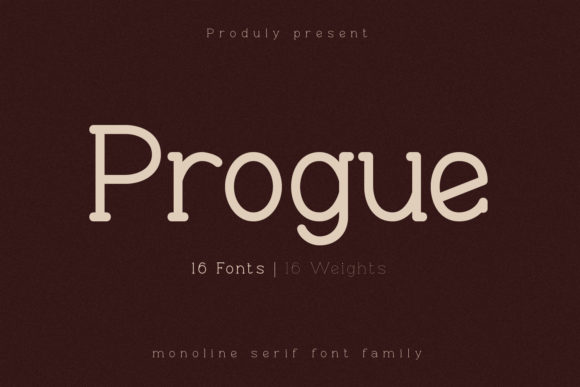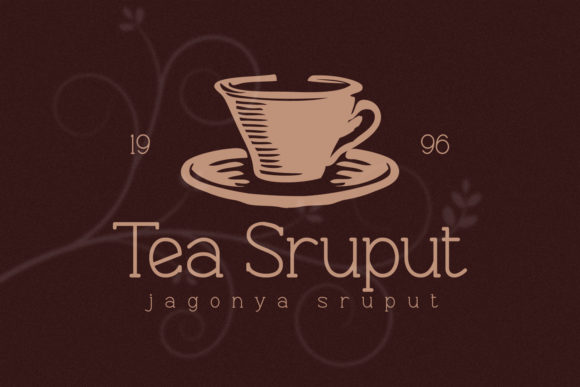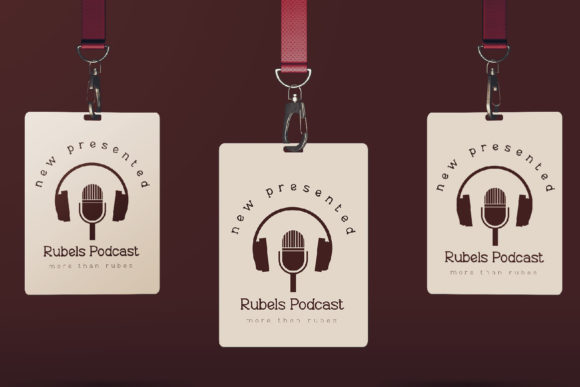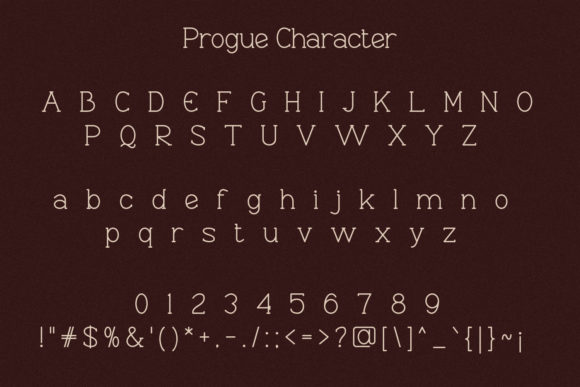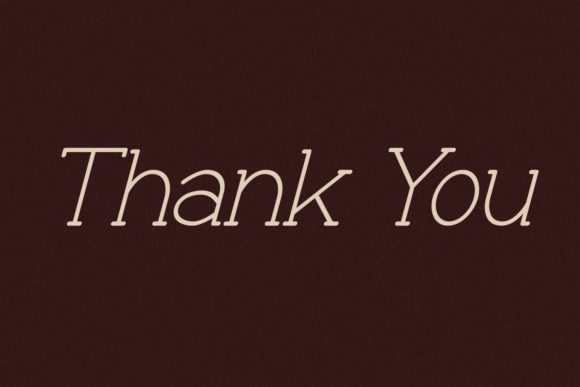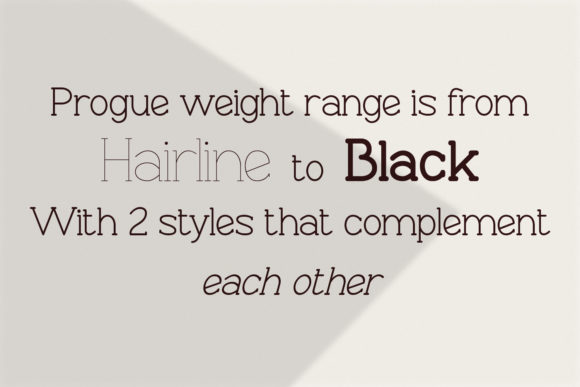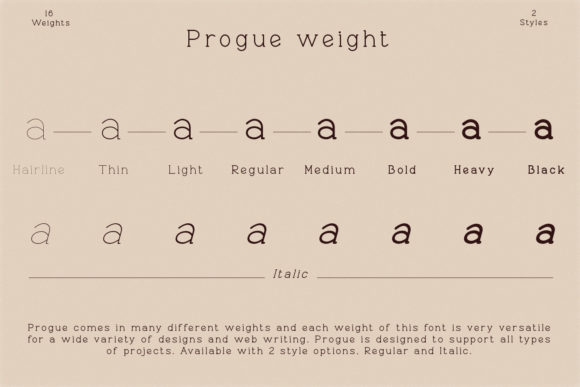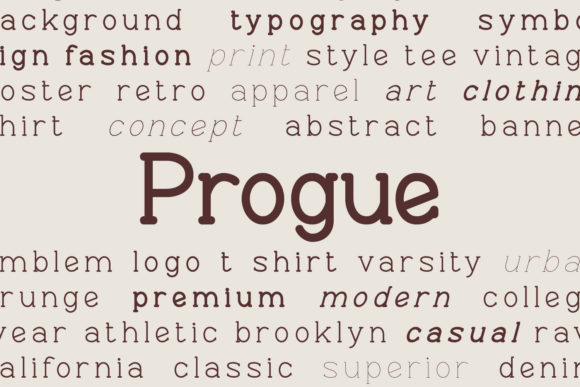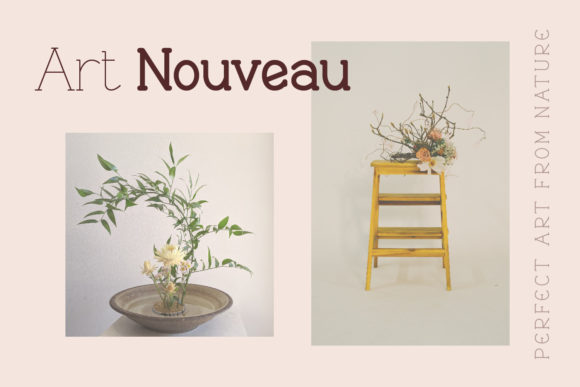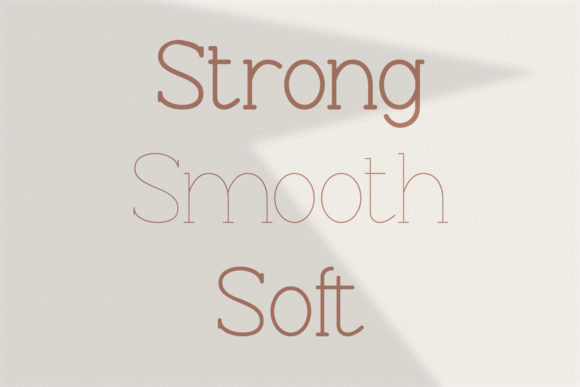
PROGUE FONT SPECIMEN
Progue is a cool, fun and adaptable slab serif font. It matches a variety of designs related to crafting, digital designing, presentations or greeting cards making.